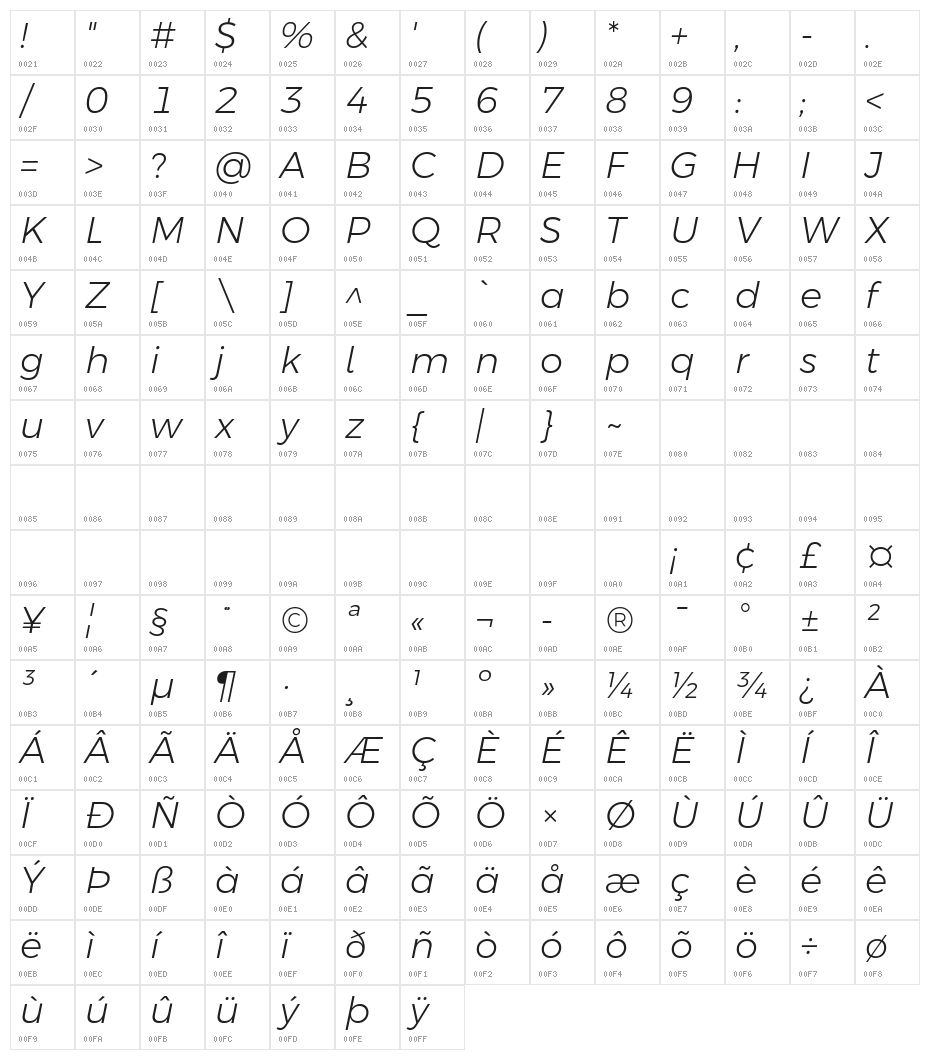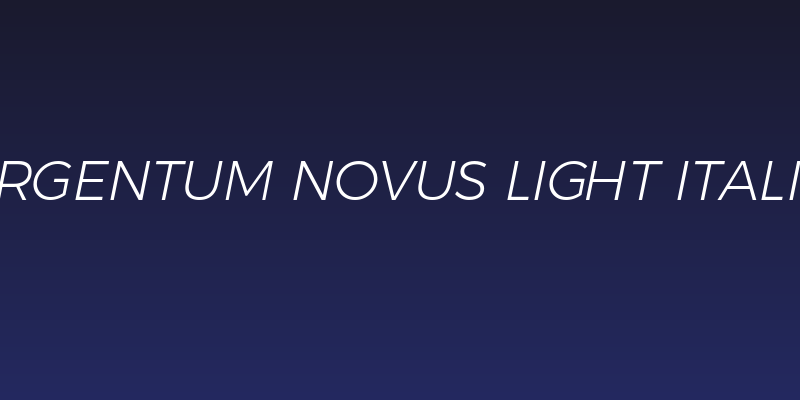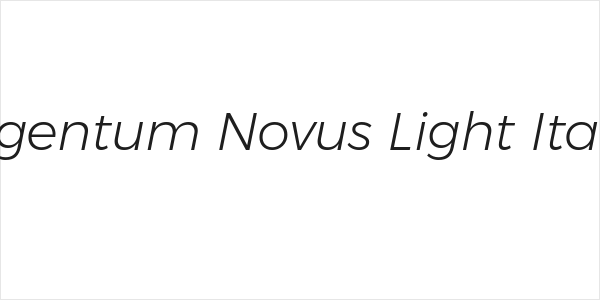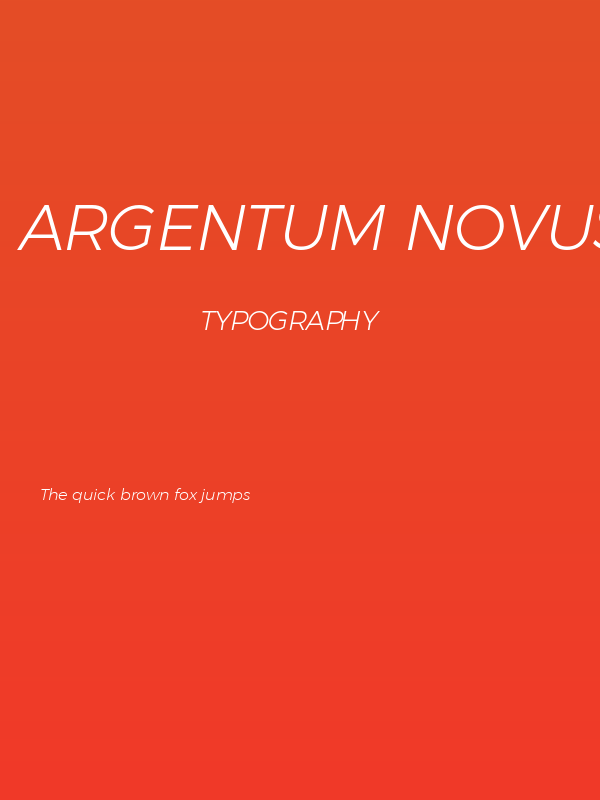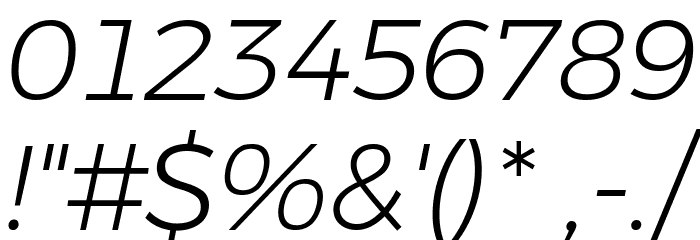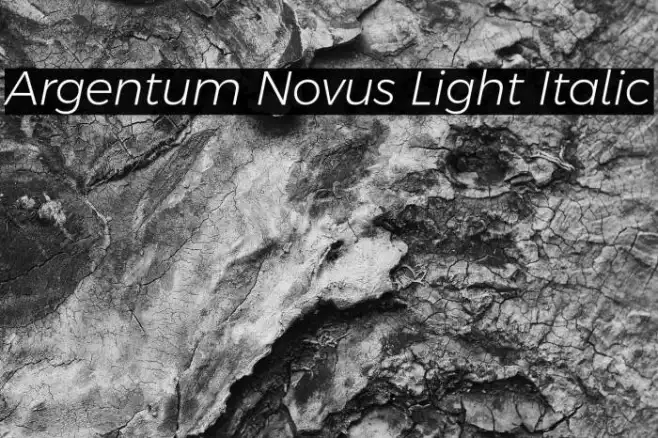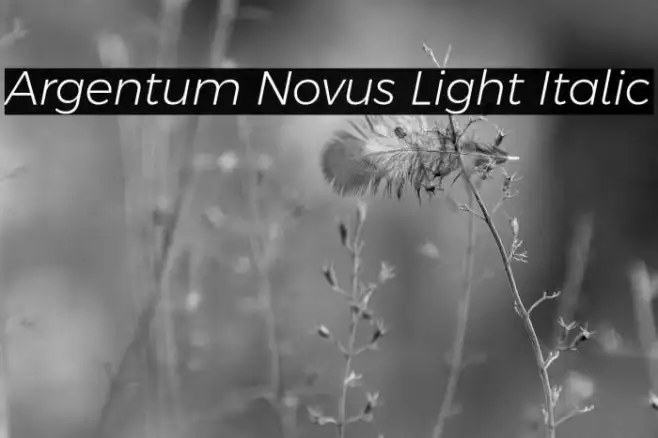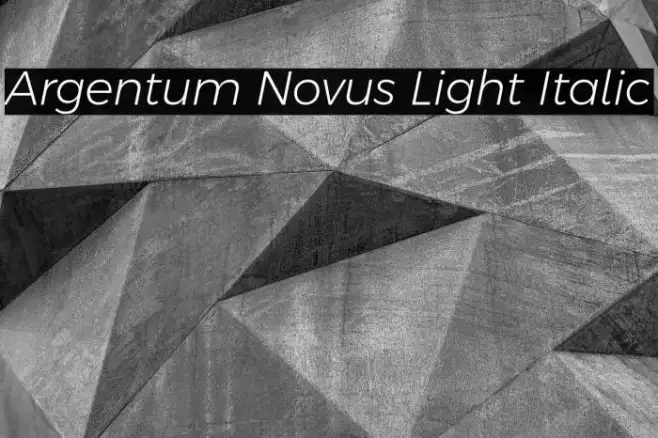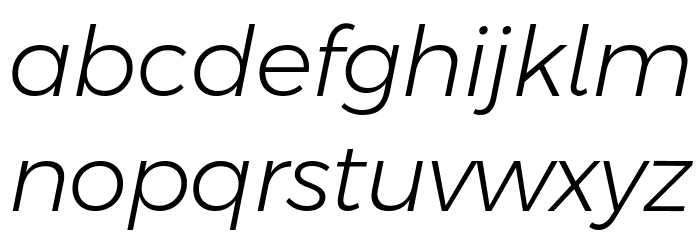
Argentum Novus Light Italic Font
Argentum Novus Light Italic Description
This font exhibits a sleek and modern aesthetic with a light weight and italic style. The characters are elegantly slanted, providing a sense of motion and fluidity. The letterforms are clean and minimalistic, with smooth curves and sharp edges that enhance readability. The spacing between characters is balanced, offering a harmonious visual flow. This font is versatile, suitable for both digital and print media, and can be used to convey a contemporary and professional tone.
| Use Case | Headlines, Body text, Logos |
| Proposed Projects | Ideal for modern branding, editorial design, digital interfaces, and minimalist posters. |